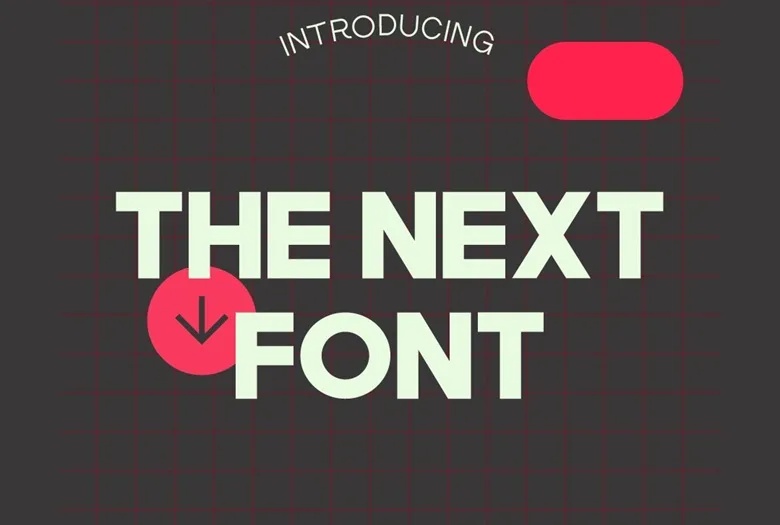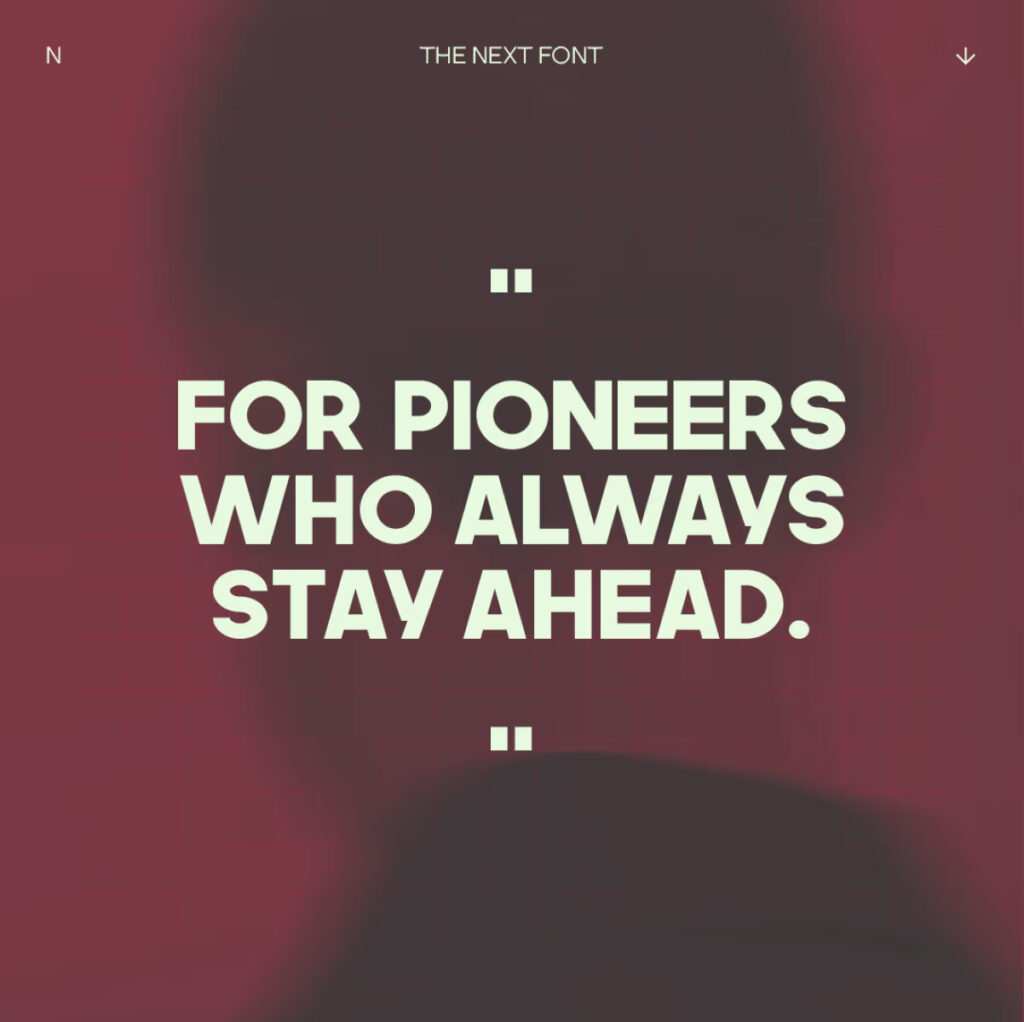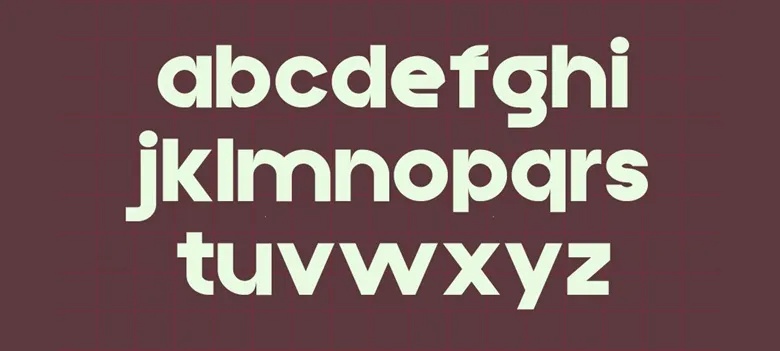
The Next Font
The Next is a high-quality, bold sans-serif font designed by Sven Pels. Available for free download and personal use, the font includes both uppercase and lowercase letters, as well as a few special characters. Ideal for logo design, social media graphics, movie and book titles, and both short and long text, this versatile font is perfect for a wide range of creative projects.
The Next Sans Serif Font